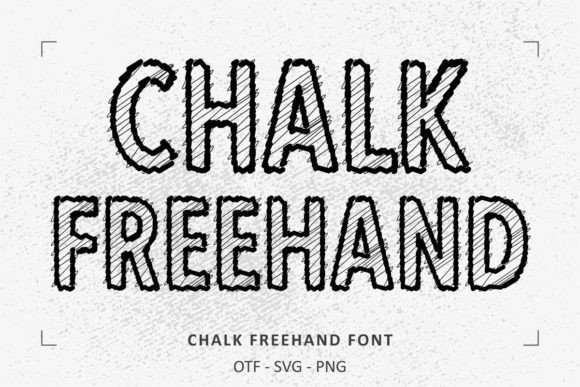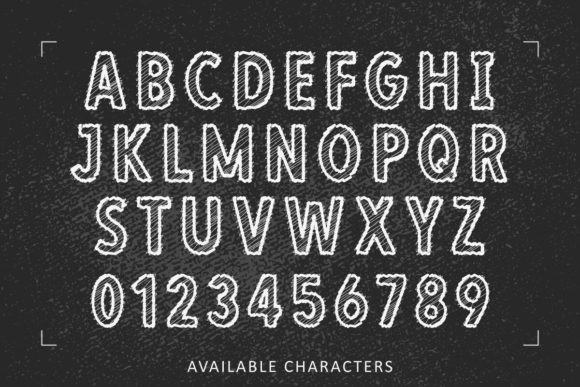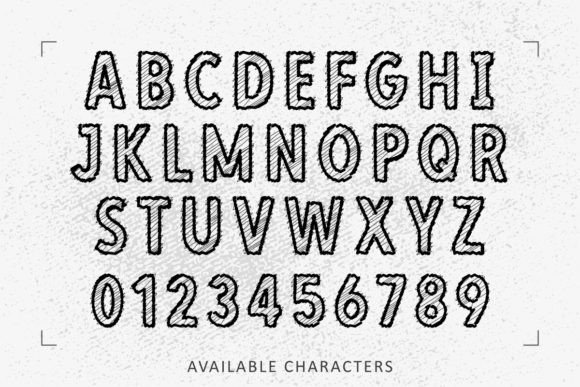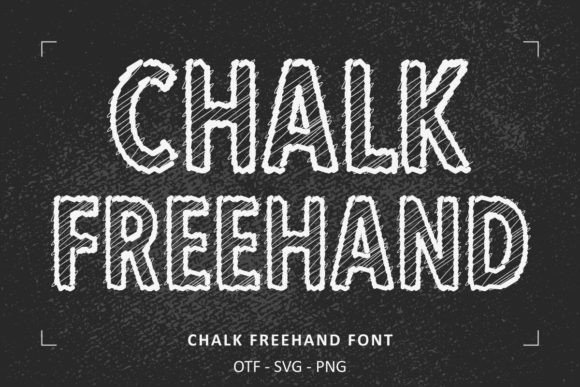
Introducing Chalk Freehand Font: The Perfect Addition to Your Design Arsenal
Are you tired of using the same old fonts in your designs? Do you want to add a touch of whimsy and playfulness to your projects? Look no further than the Chalk Freehand Font! This great sketch font is perfect for school-themed projects, chalk writing, and creating cool designs that scream for attention.
What is Chalk Freehand Font?
Chalk Freehand Font is a unique and versatile font that mimics the look of chalk writing. Its freehand style gives it a personal and imperfect feel, making it perfect for designs that require a casual touch. Whether you’re creating t-shirts, book designs, restaurant menus, blog writing, or greeting cards, this font is sure to add a touch of charm and personality to your work.
Features of Chalk Freehand Font
- Sketch font: Chalk Freehand Font has a sketchy, hand-drawn feel that gives it a unique and artistic look.
- Chalk writing style: The font mimics the look of chalk writing, making it perfect for school-themed projects and designs that require a playful touch.
- Casual and imperfect feel: The freehand style of the font gives it a personal and imperfect feel, making it perfect for designs that require a casual touch.
- Versatile: Chalk Freehand Font can be used for a wide range of projects, from t-shirts and book designs to restaurant menus and greeting cards.
Why Use Chalk Freehand Font?
There are many reasons why you should consider using Chalk Freehand Font in your designs. Here are just a few:
- Add a touch of whimsy: Chalk Freehand Font adds a touch of whimsy and playfulness to your designs, making them stand out from the crowd.
- Create attention-grabbing designs: The font’s unique style and chalk writing look make it perfect for creating cool designs that scream for attention.
- Perfect for school-themed projects: Chalk Freehand Font is perfect for school-themed projects, such as book designs, posters, and stickers.
Design Ideas Using Chalk Freehand Font
Chalk Freehand Font is a versatile font that can be used for a wide range of projects. Here are some design ideas to get you started:
- T-shirts: Use Chalk Freehand Font to create fun and playful designs for t-shirts, perfect for schools, summer camps, or kids’ birthday parties.
- Book designs: Add a touch of whimsy to your book designs, such as children’s books, educational materials, or workbooks.
- Restaurant menus: Use Chalk Freehand Font to create fun and playful menu designs for restaurants, cafes, or food trucks.
- Greeting cards: Add a personal touch to your greeting cards, such as birthday cards, thank-you cards, or get-well cards.
- Stickers: Use Chalk Freehand Font to create fun and playful stickers for kids, schools, or parties.
Chalk Freehand Font is a unique and versatile font that is perfect for designers and crafters looking to add a touch of whimsy and playfulness to their projects. Its chalk writing style and freehand feel make it perfect for school-themed projects, cool designs, and casual touches. With its ease of use and wide range of design possibilities, Chalk Freehand Font is a great addition to any design arsenal.
So why wait? Fall in love with the incredibly cool style of Chalk Freehand Font and use it to create lovely designs that will stand out from the crowd!